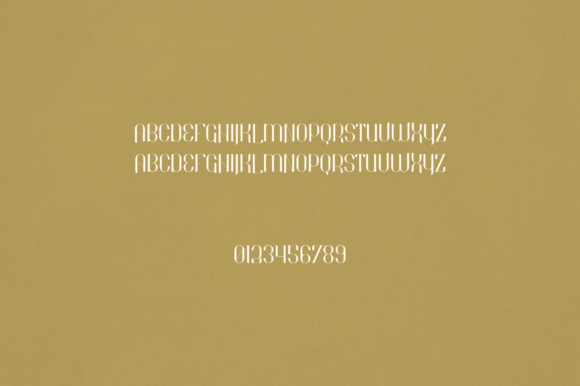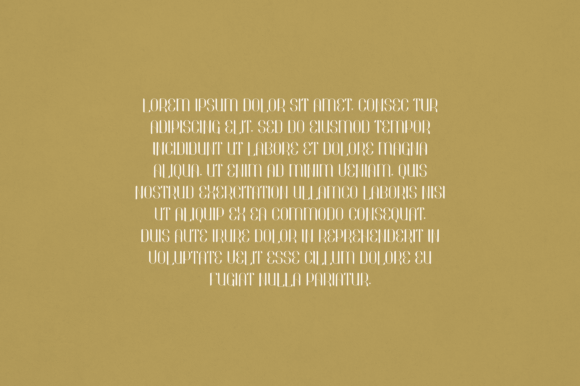
Discover the Elegance of Frances Font: Elevate Your Designs with Versatility and Style
In the world of typography, a font can make or break a design. For designers and crafters seeking to infuse their projects with a touch of elegance and uniqueness, Frances Font emerges as a beacon of creativity. This article delves into the characteristics, applications, and benefits of Frances Font, a sophisticated display font that promises to transform your typography into a masterpiece.
What is Frances Font?
Frances Font is an elegant and versatile display font designed to make your typography truly unique. Its sophisticated design ensures that it doesn’t just complement your work; it elevates it. Whether you’re working on a logo, branding materials, headlines, or any plain text, Frances Font brings a level of refinement that’s hard to achieve with standard fonts.
Key Features of Frances Font
- Elegance and Versatility: Frances Font embodies both elegance and versatility, making it suitable for a wide range of design projects.
- Unique Typography: With its distinctive style, Frances Font ensures that your designs stand out from the crowd.
- High Readability: Despite its elegant and decorative nature, Frances Font maintains high readability, making it perfect for both headlines and body text.
Applications of Frances Font
The versatility of Frances Font means it can be used across various design projects. Here are some of the ideal applications:
- Branding Projects: Create a lasting impression with elegant and memorable brand names and taglines.
- Home-Ware Designs: Add a touch of sophistication to product designs for homewares, making them more appealing to potential customers.
- Product Packaging: Stand out on the shelves with unique and captivating packaging designs.
- Magazine Headers: Draw readers in with stylish and compelling headlines.
- Text Overlays: Use Frances Font as a stylish text overlay on background images for a professional and polished look.
Frances Font offers numerous benefits for designers and crafters looking to elevate their work:
- Time-Saving: With its comprehensive set of characters and styles, Frances Font saves you time in designing intricate text elements from scratch.
- Consistency: Using a single, high-quality font across your project ensures consistency and professionalism.
- Creativity Boost: The unique style of Frances Font can spark creativity, helping you to experiment with different design concepts.
How to Use Frances Font Effectively
To maximize the potential of Frances Font, consider the following tips:
- Mix and Match: Experiment with different sizes, weights, and colors of Frances Font to create visual hierarchy and interest.
- Pair Wisely: When pairing Frances Font with other fonts, choose fonts that complement its elegance and sophistication.
- Consider Context: Ensure that the use of Frances Font aligns with the overall theme and message of your design project.
Frances Font is more than just a display font; it’s a tool for transformation. Whether you’re a designer looking to elevate your branding projects, a crafter aiming to add a touch of elegance to your home-ware designs, or simply someone who appreciates beautiful typography, Frances Font is an excellent choice. Its elegance, versatility, and unique style make it a valuable asset in your design toolkit. Discover the impact that Frances Font can have on your typography and take your designs to new heights of sophistication and style.